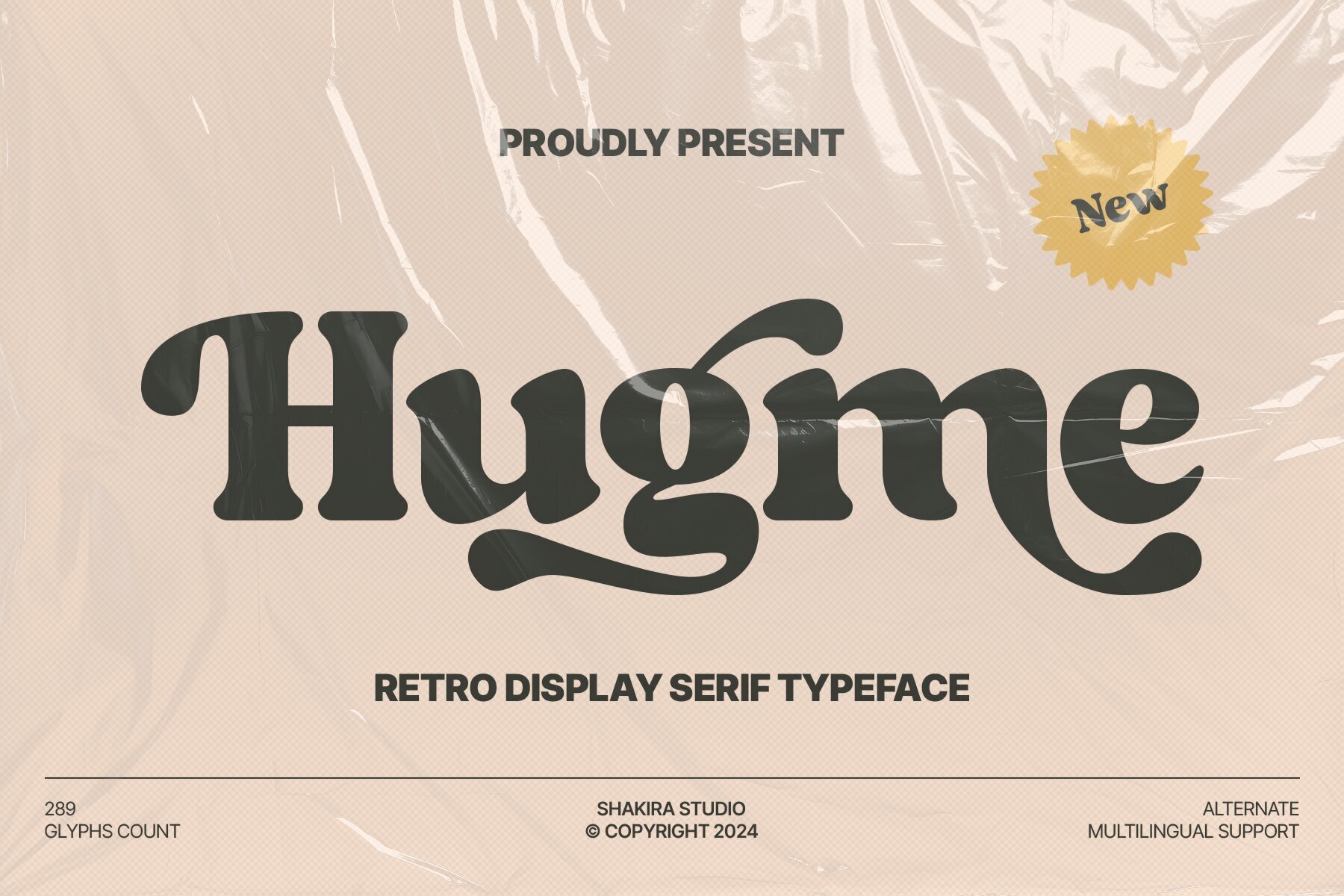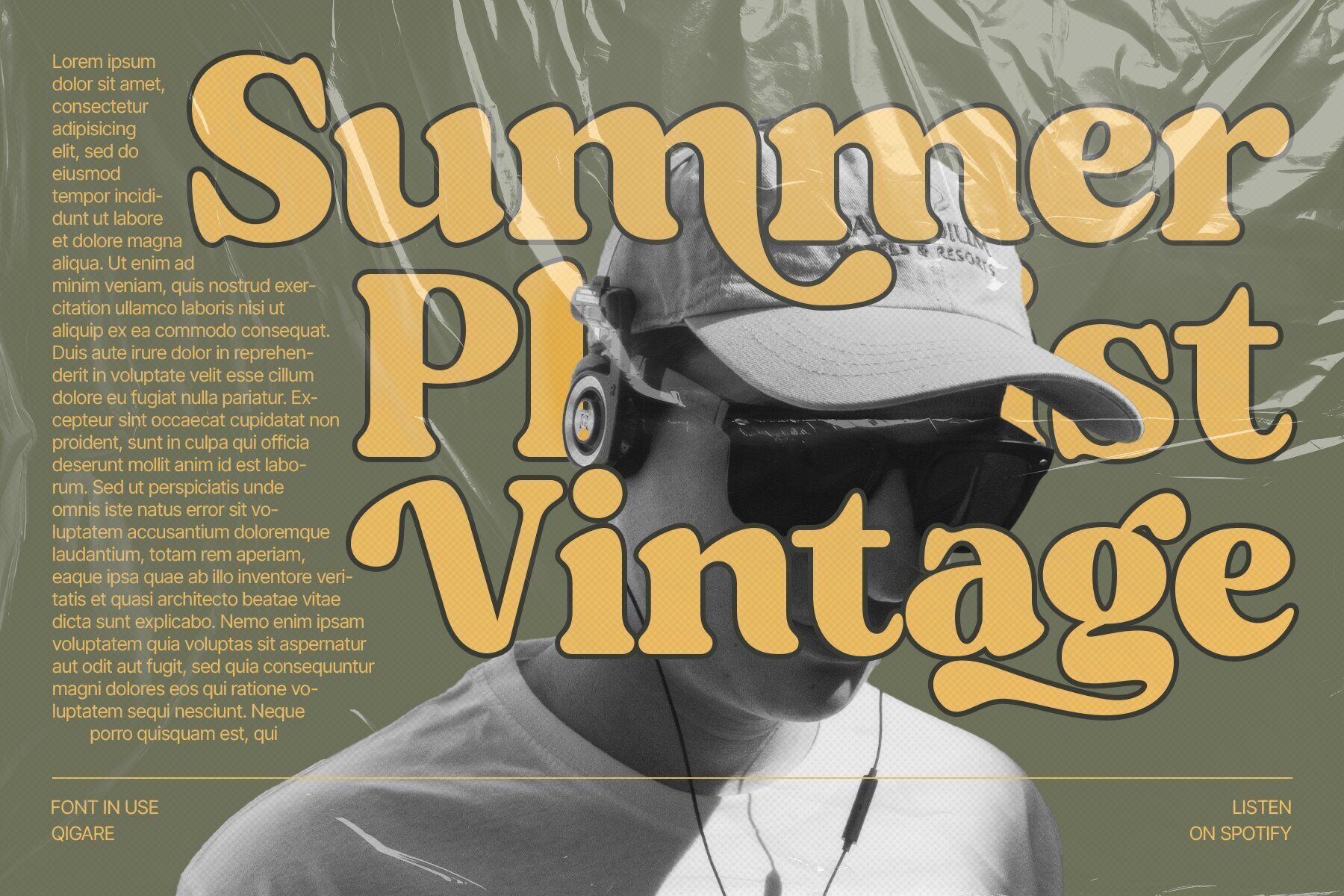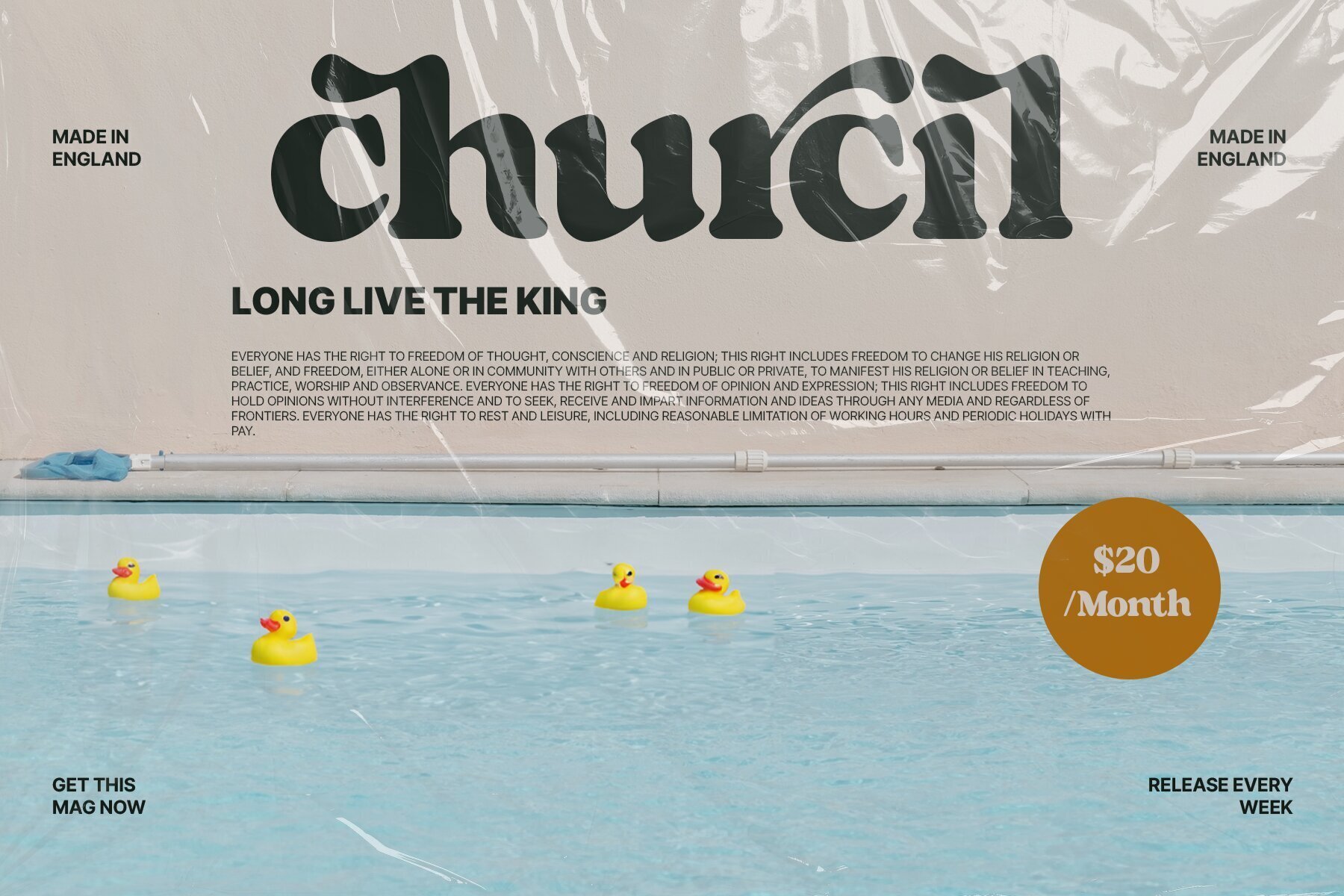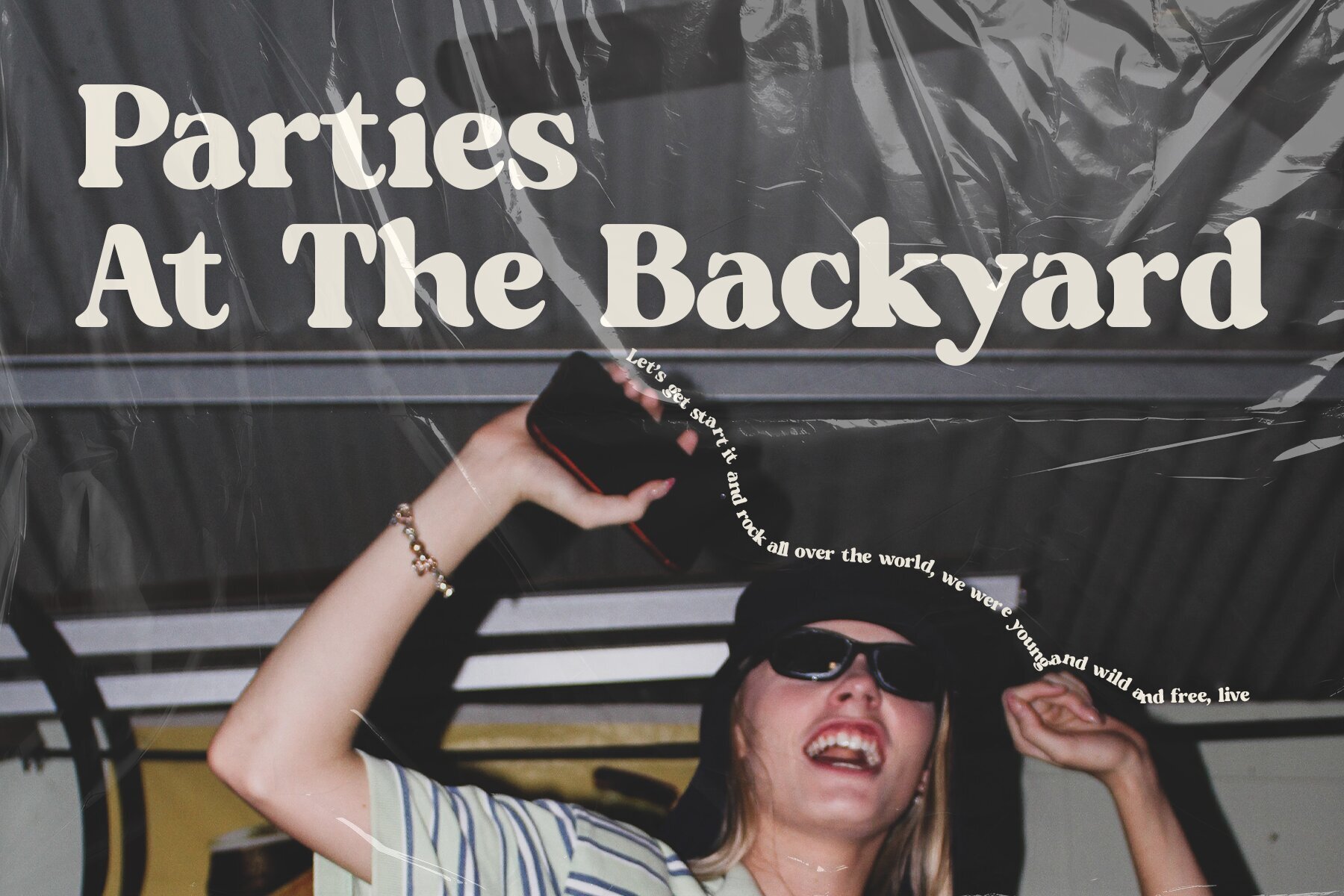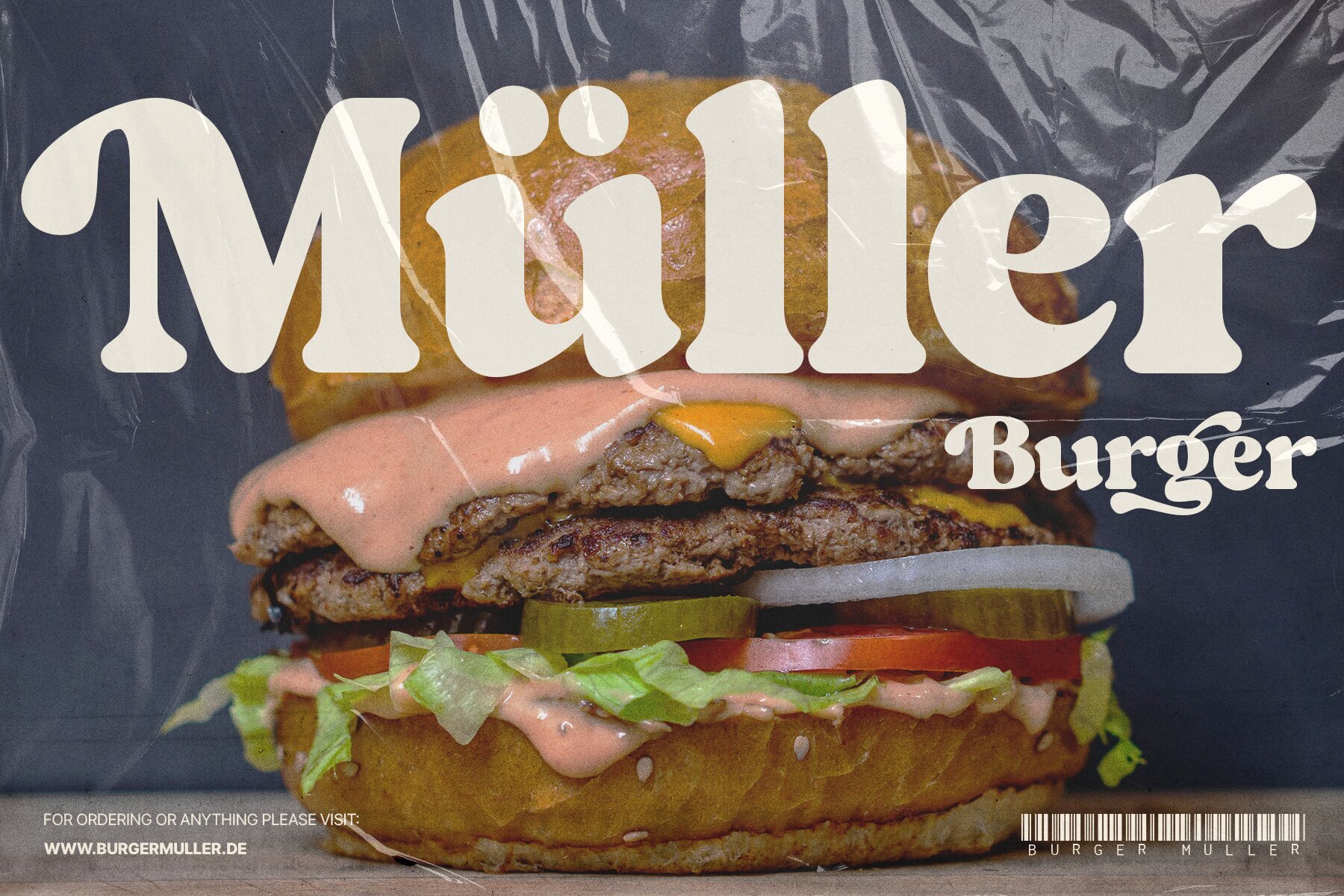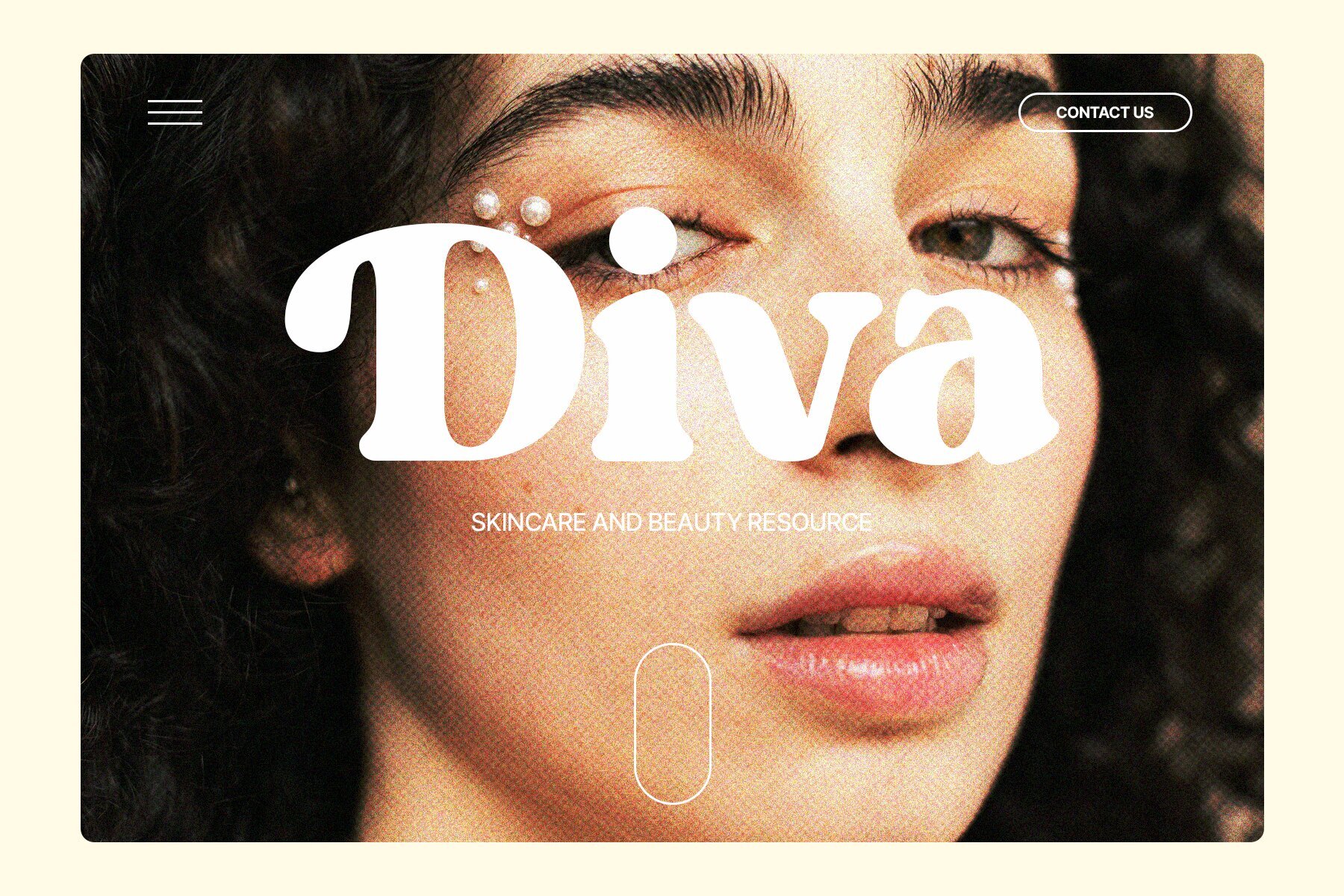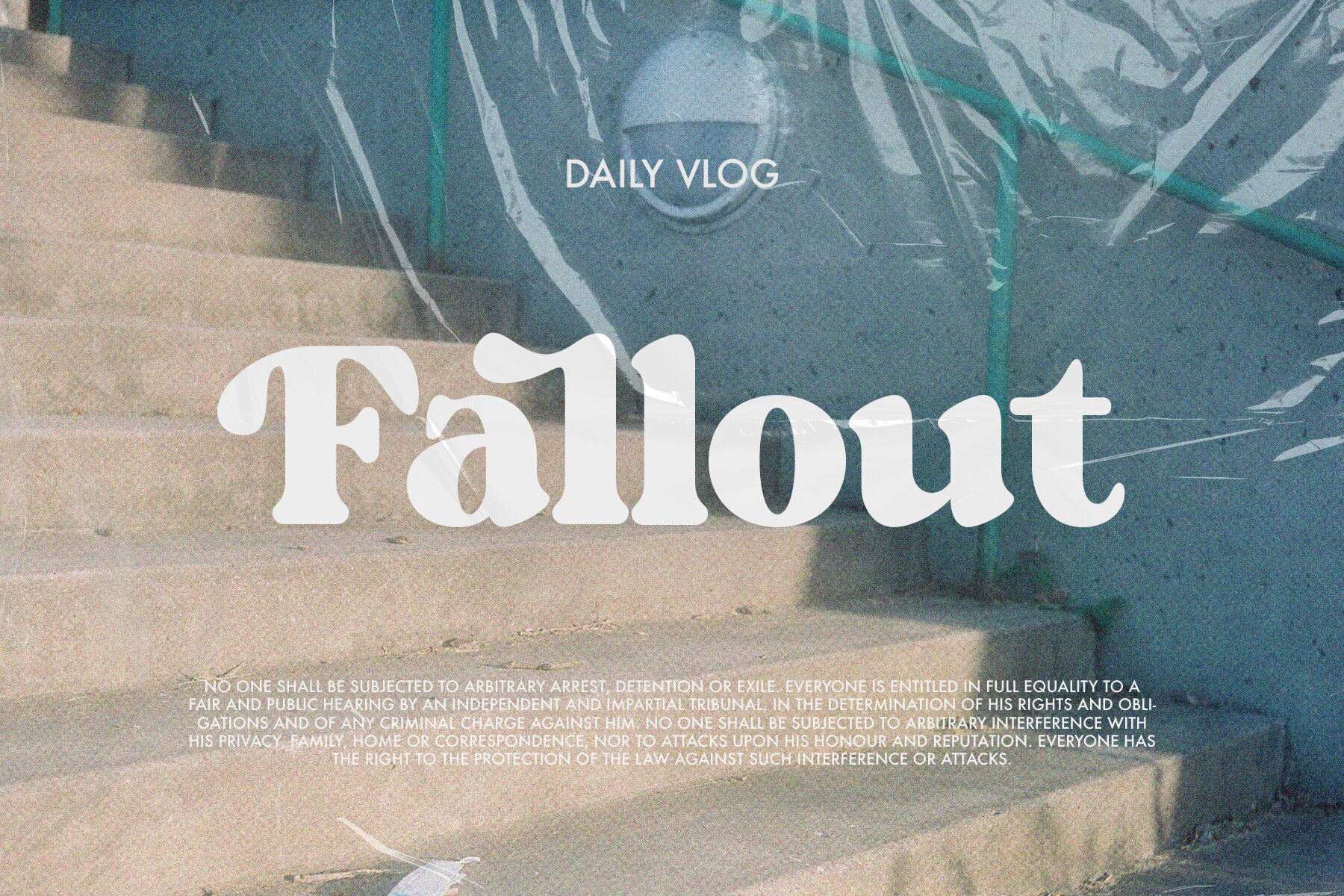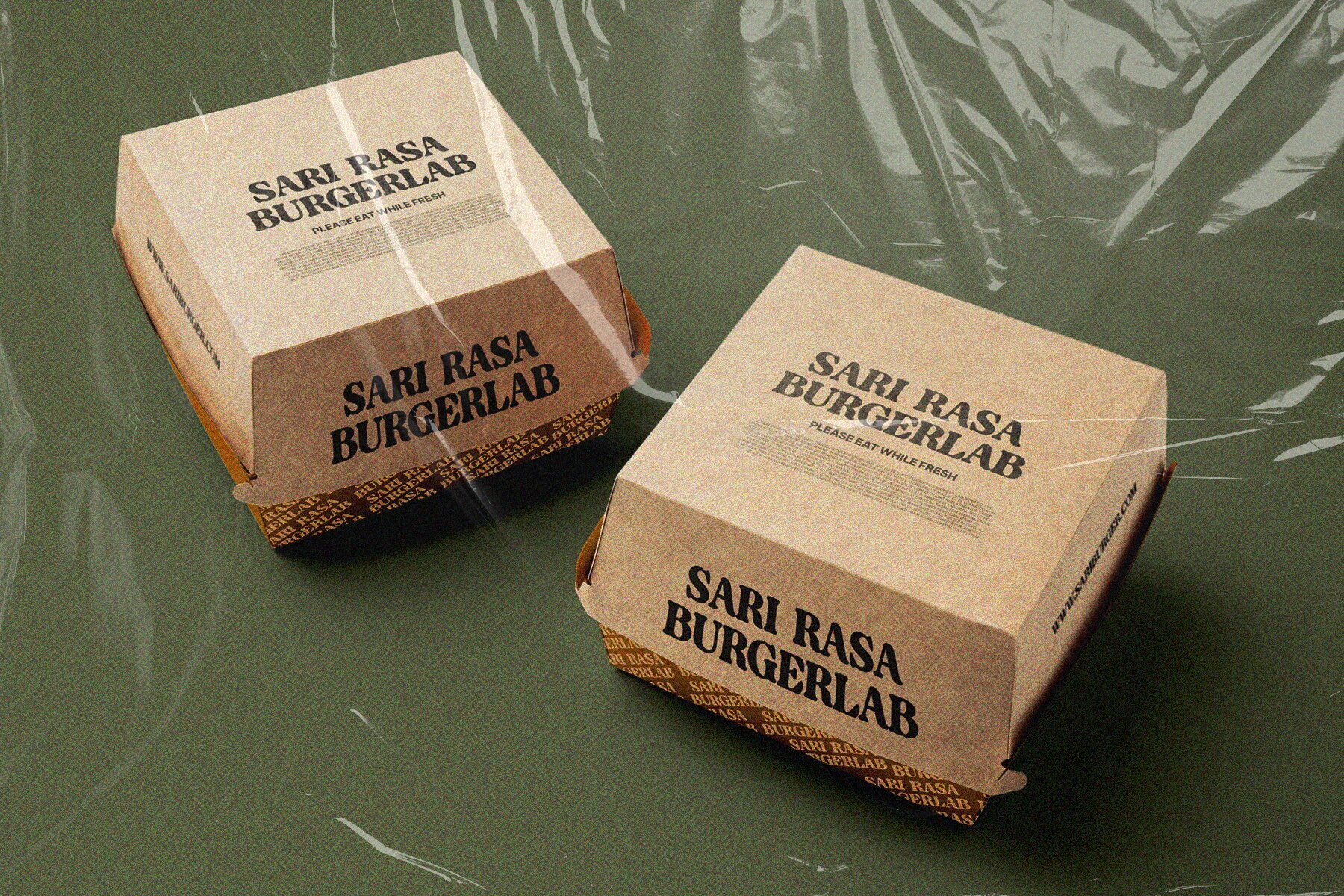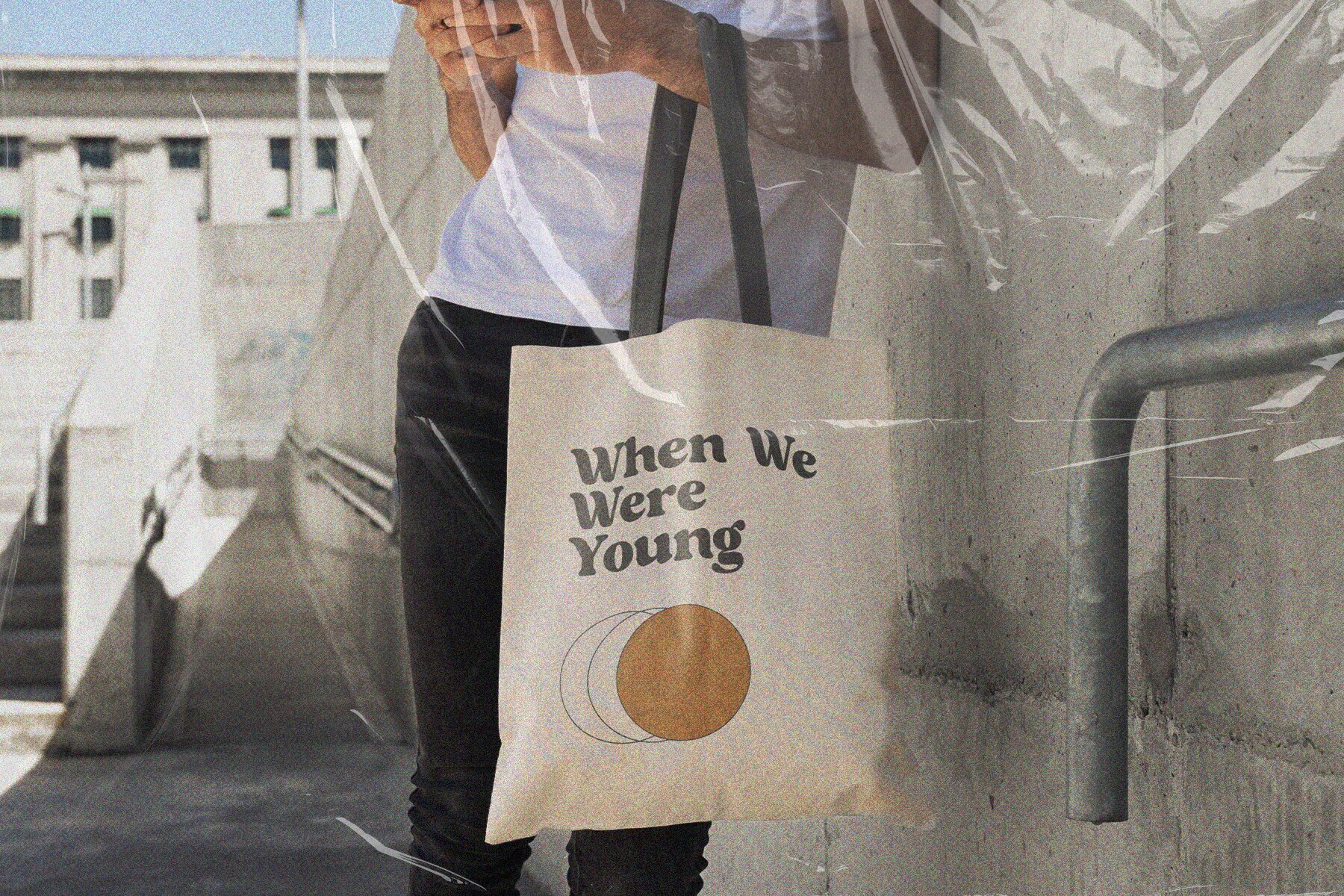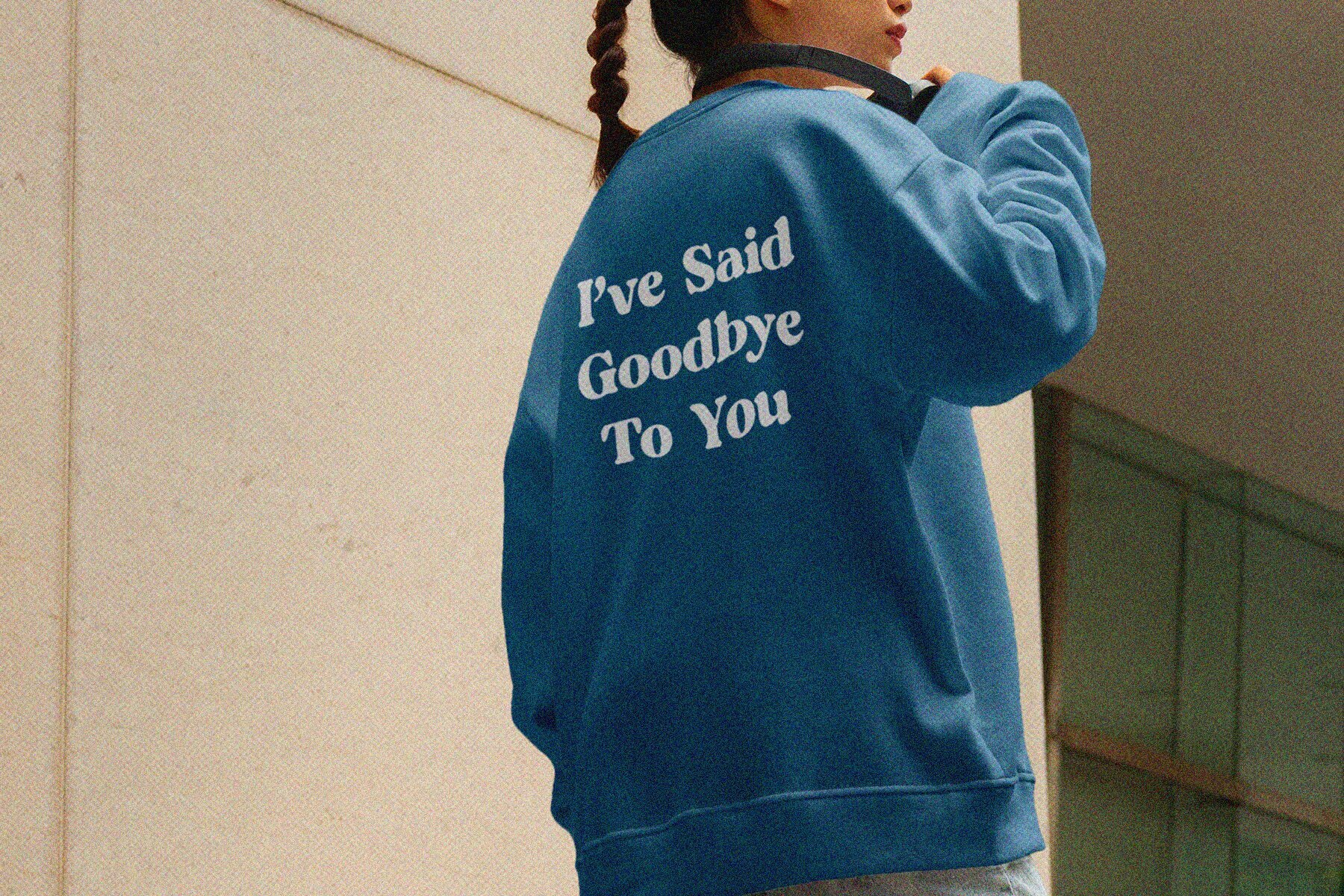
Hugme Font
Hugme Regular
Hugme Italic
Hugme offers a nostalgic journey back to the retro era, enhanced with a modern twist. Its bold characters and unique alternates make it an ideal choice for designers aiming to infuse their projects with vintage charm and contemporary flair. Embrace the blend of retro sophistication with Hugme, and join the trend towards nostalgic design. Support is included for a wide range of languages, including Afrikaans, Albanian, Catalan, Croatian, Czech, Danish, Dutch, English, Estonian, Finnish, French, German, Hungarian, Icelandic, Italian, Lithuanian, Maltese, Norwegian, Polish, Portuguese, Slovenian, Spanish, Swedish, Turkish, and Zulu.Hugme: Retro Display Serif Font with Modern Flair